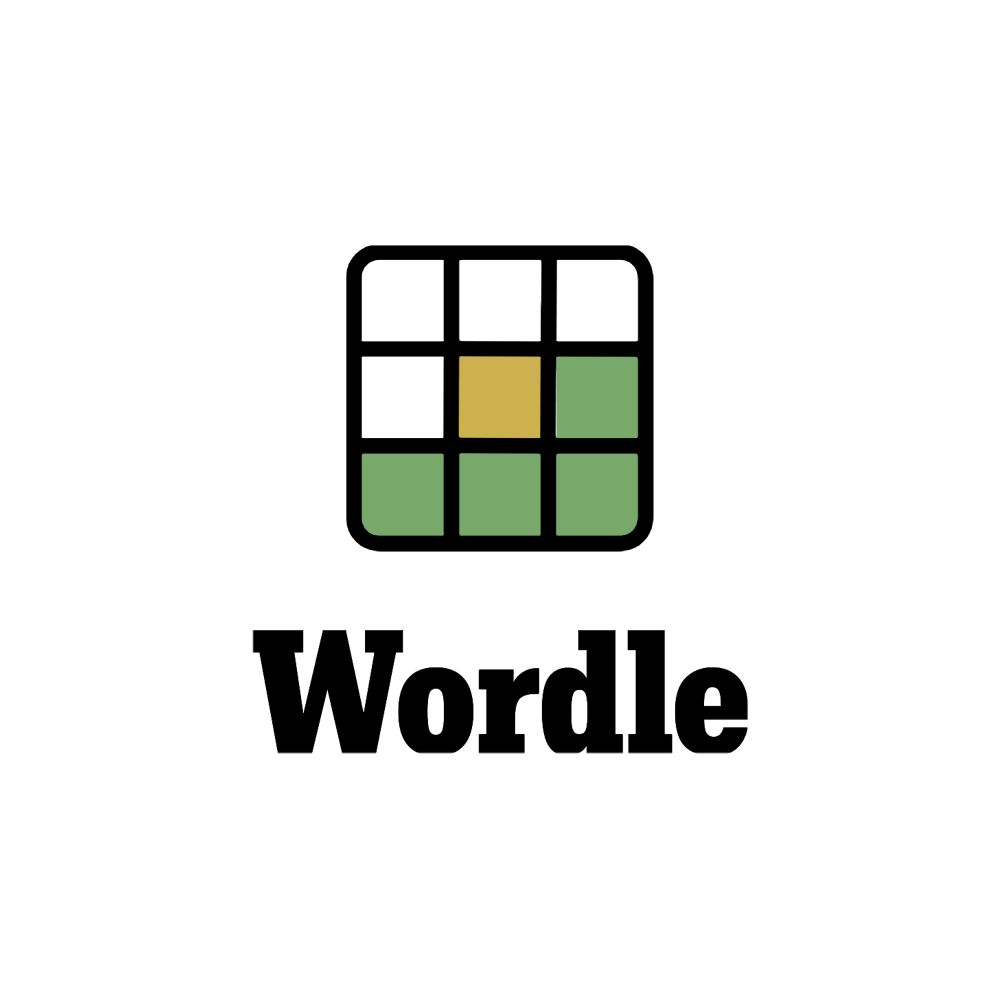
NYT Wordle Font
LogoWordle is an online word puzzle game where players have six attempts to guess a hidden five-letter word. After each guess, the game provides feedback by highlighting letters in different colors—green for correct letters in the right position, yellow for correct letters in the wrong position, and gray for incorrect letters. The challenge revolves around strategy, vocabulary, and the ability to think creatively with 5 letter words.
The font used for the words in Wordle is NYT Franklin 700, which is their in-house version of Franklin Gothic. The font used for Wordle title is NYT Karnak Condensed 700 which is a slightly altered version of Karnak Condensed, also proprietary. All font data was collected by checking NYT source code.